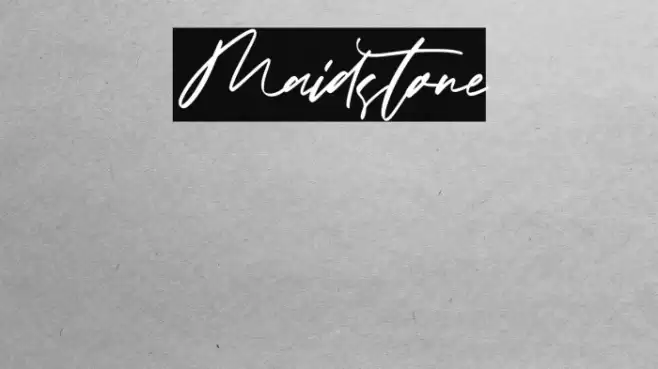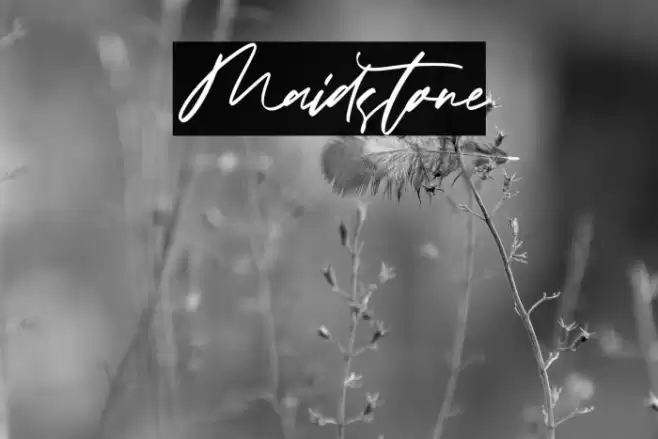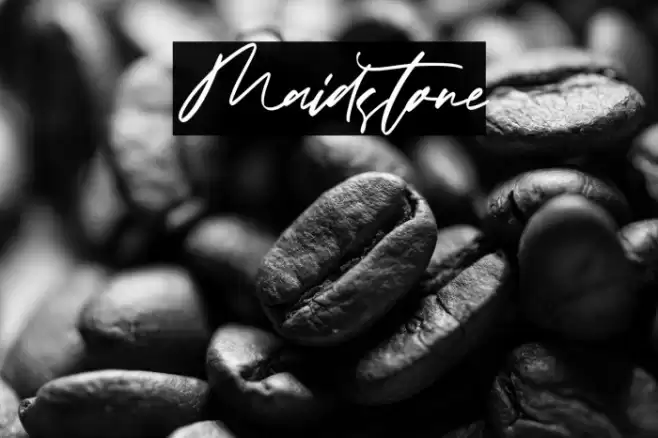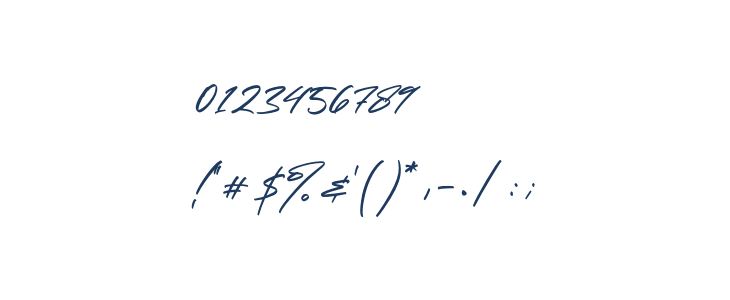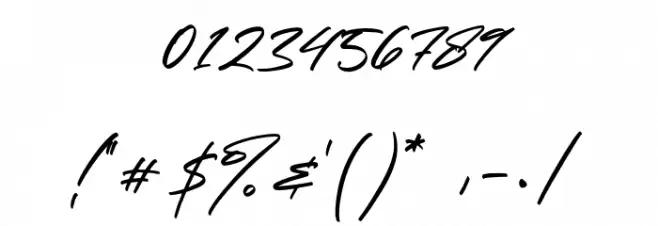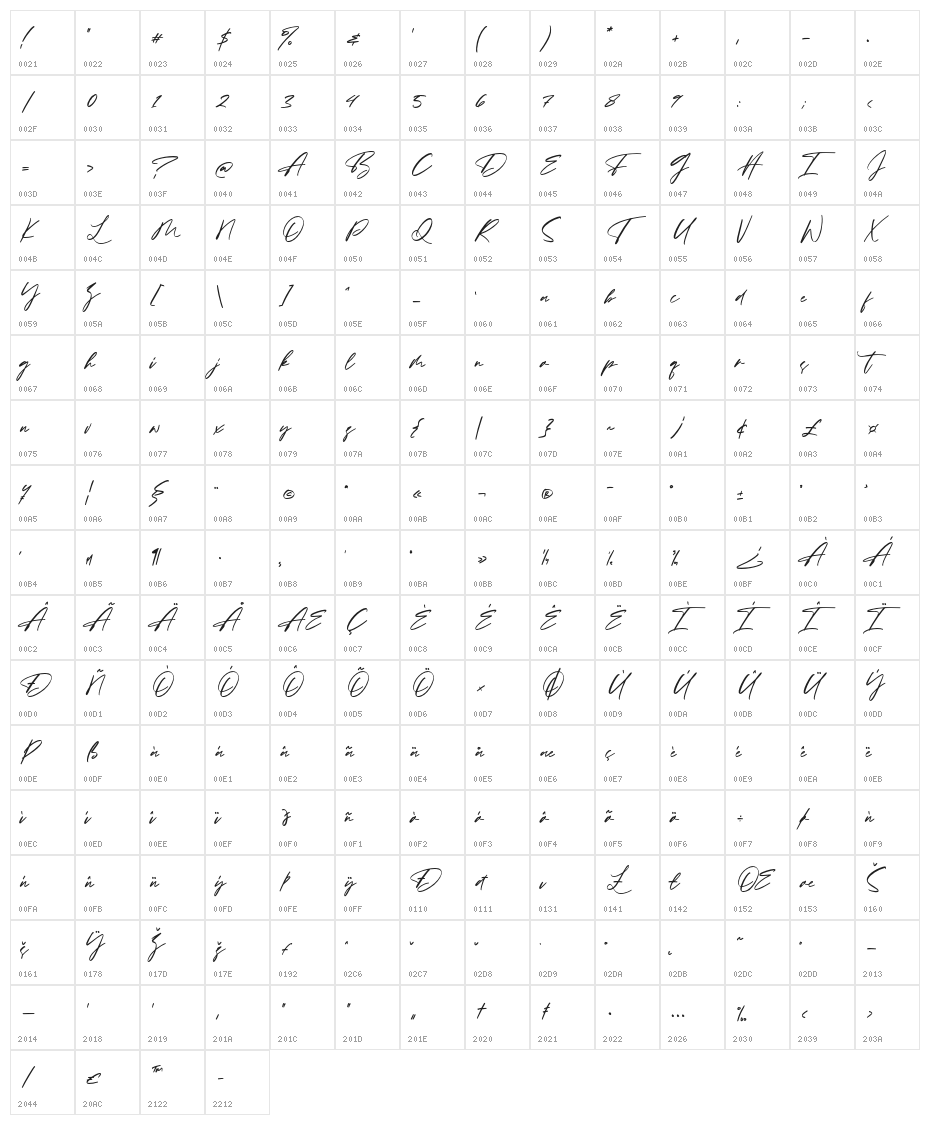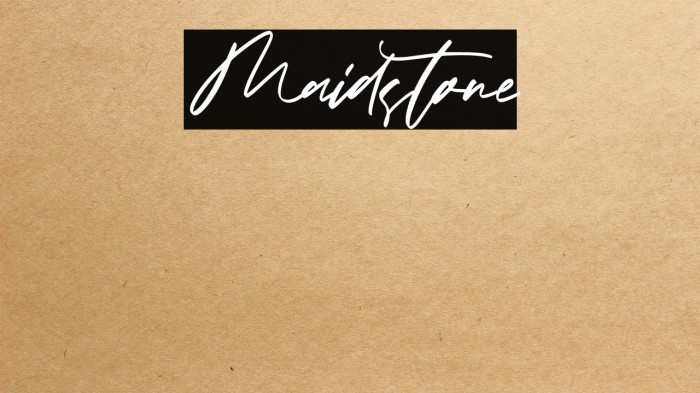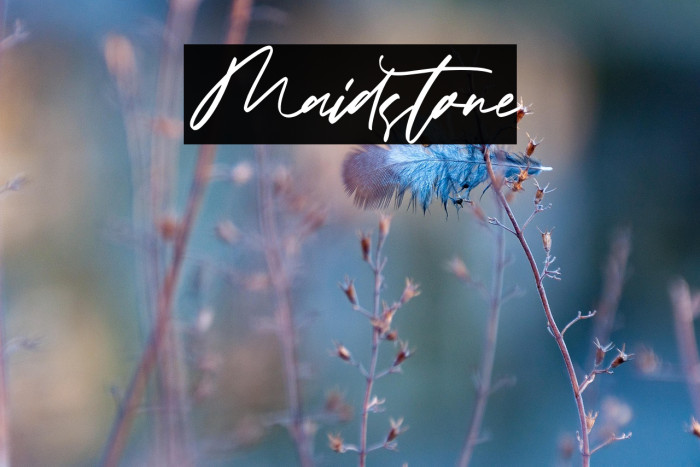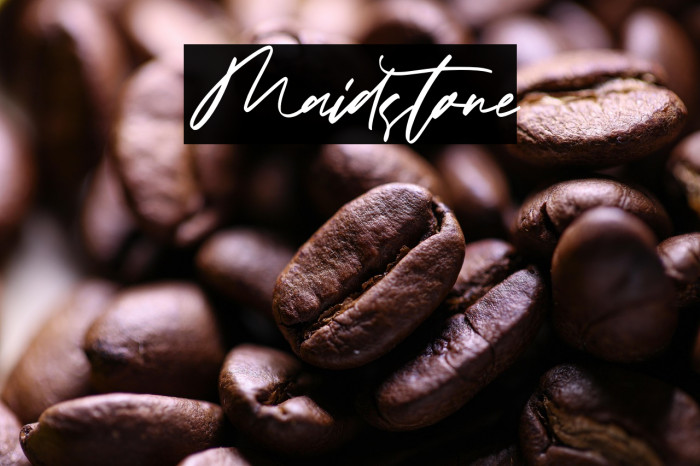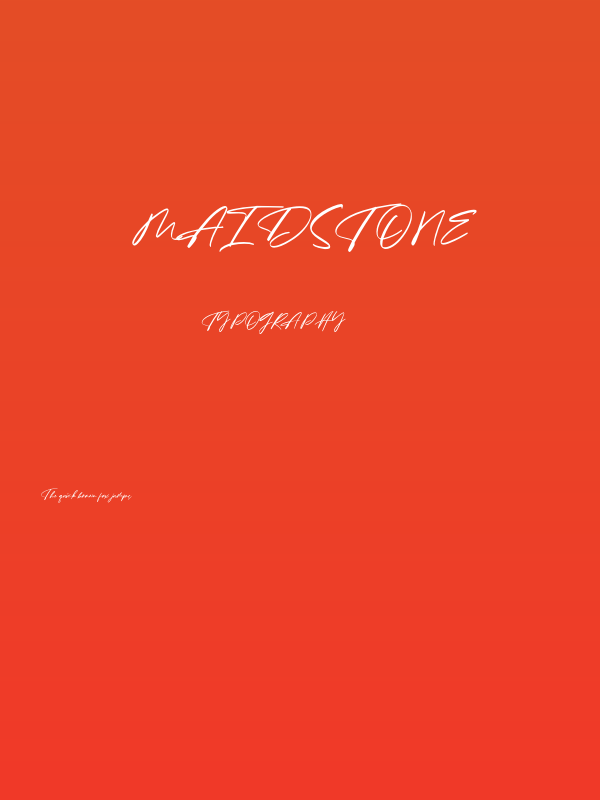
Maidstone Font
Maidstone Description
This font exudes a dynamic and expressive style, characterized by its fluid, handwritten appearance. The letters are elegantly connected, with a natural flow that mimics authentic cursive handwriting. Each character is distinct yet harmonizes with the others, creating a cohesive look. The strokes vary in thickness, adding a sense of movement and energy. The uppercase letters are bold and prominent, while the lowercase letters maintain a graceful and delicate form. The numerals and special characters are crafted with the same attention to detail, ensuring consistency throughout. This font is perfect for projects that require a personal touch, such as invitations, greeting cards, or branding materials.
A dynamic, expressive handwritten font with fluid, connected letters from Regular fonts.
- Proposed Projects: Ideal for invitations, greeting cards, branding, and any project needing a personal touch.
- Use Case: Logos, Headlines, Invitations